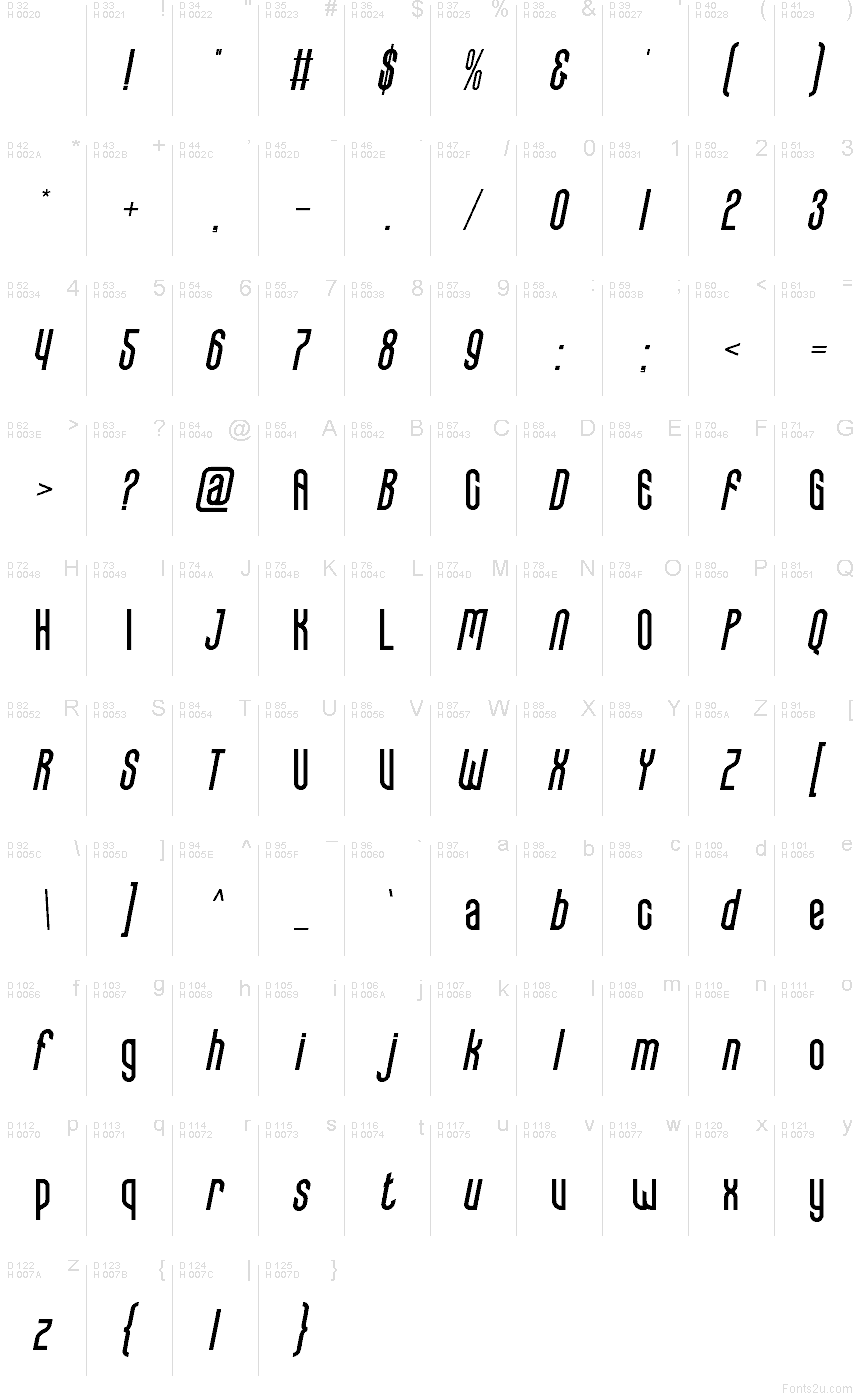
Amesta Condensed font by ErmediaStudio is a free retro display typeface with a bold, compressed stride that feels straight out of a neon-lit marquee. Its tall, narrow letters, blunt angles, and smooth, inky curves create a rhythm that’s both punchy and refined, giving you big personality without eating horizontal space. Sitting within the Amesta family, this condensed style pulls the eye upward, stacking energy and attitude into every word.
Using Amesta Condensed, short headlines snap into place, reading loud and clear even at a glance, while the tight letterforms keep layouts clean and efficient. This free font shines on posters, bold packaging, logotypes, social media graphics, album covers, and event branding that needs a compact retro edge. Pair it with a simple geometric sans in smaller text and let Amesta Condensed handle the big, attention-grabbing moments.